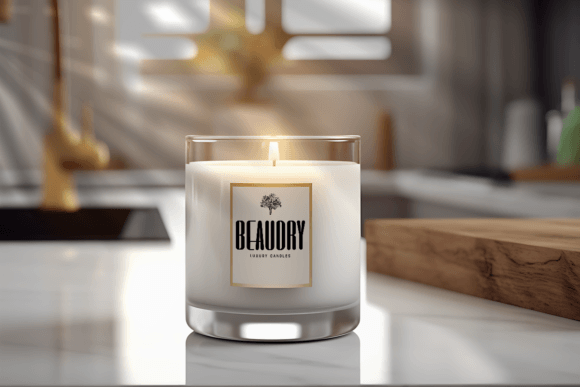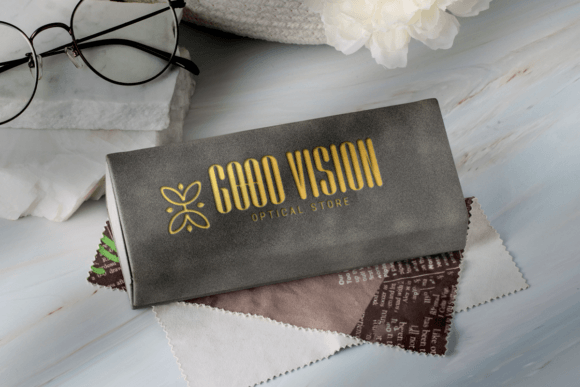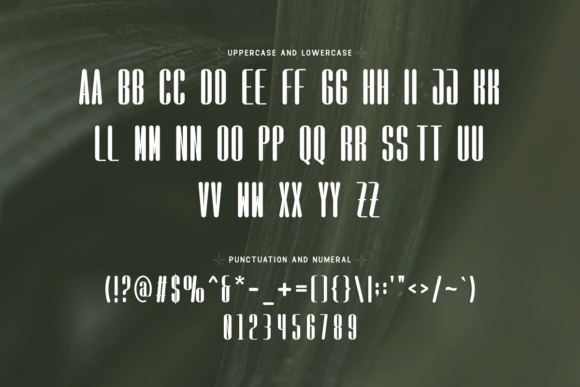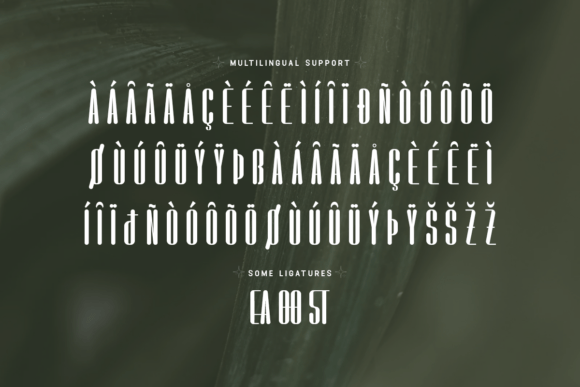
Discover the Elegance of Floresta Font: A Modern Sans Serif Typeface
In the world of typography, a font can make all the difference in the success of a design project. For designers and crafters looking for a typeface that combines modernity with a natural feel, Floresta Sans Serif Font is an excellent choice. Inspired by the simplicity and elegance of nature, Floresta is a versatile font that can elevate a wide range of design projects, from branding and logos to packaging and web design.
The Inspiration Behind Floresta Font
Floresta Sans Serif Font draws its inspiration from the natural world, where simplicity and elegance reign supreme. The font’s clean lines and organic feel evoke the serenity of a forest, making it perfect for designers who want to convey a sense of calmness and professionalism in their work. Whether you’re working on a digital or print project, Floresta Font brings a touch of modern elegance and natural harmony to your creative endeavors.
Key Features of Floresta Sans Serif Font
So, what makes Floresta Font stand out from other typefaces? Here are some of its key features:
• Modern and Versatile: Floresta Font is a modern sans serif typeface that can be used for a wide range of design projects, including branding, logos, packaging, and web design.
• Clean Lines: The font features clean lines that give it a crisp and contemporary look, making it perfect for designers who want to convey clarity and professionalism.
• Natural and Organic Feel: Despite its modernity, Floresta Font has a natural and organic feel that makes it relatable and approachable.
• PUA Encoded: Floresta Font is PUA encoded, which means you can access all of the cute glyphs and swashes with ease, giving you more creative freedom.
Use Cases for Floresta Font
Floresta Sans Serif Font is an incredibly versatile typeface that can be used for various design projects, including:
• Branding: Create a strong brand identity with Floresta Font, which can be used for logos, business cards, and letterheads.
• Logos: Design a memorable logo with Floresta Font, which is perfect for startups, businesses, and entrepreneurs.
• Packaging: Use Floresta Font for packaging design, including labels, tags, and product packaging.
• Web Design: Create a stunning website with Floresta Font, which is optimized for digital use and can be used for headings, body text, and more.
Why Choose Floresta Font?
With so many typefaces available, why should you choose Floresta Font for your design projects? Here are some compelling reasons:
• Elegant yet Approachable: Floresta Font strikes the perfect balance between elegance and approachability, making it suitable for a wide range of design projects.
• Fresh and Contemporary: The font has a fresh and contemporary aesthetic that will make your design projects stand out from the crowd.
• Easy to Use: Floresta Font is PUA encoded, making it easy to access all of the glyphs and swashes.
In conclusion, Floresta Sans Serif Font is a modern and versatile typeface that can elevate a wide range of design projects. Its clean lines, natural and organic feel, and PUA encoding make it an excellent choice for designers and crafters looking for a font that combines elegance with approachability. Whether you’re working on digital or print media, Floresta Font brings a touch of modern elegance and natural harmony to your creative projects. So, why not give Floresta Font a try and experience the difference it can make in your design work?